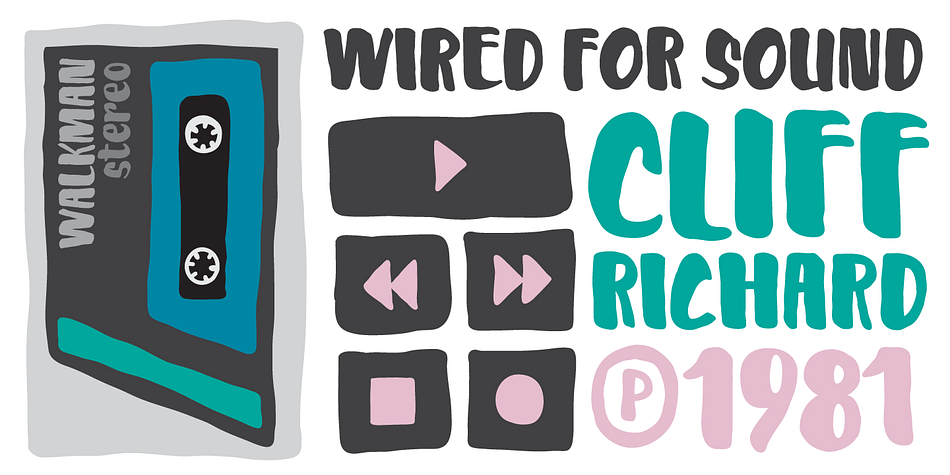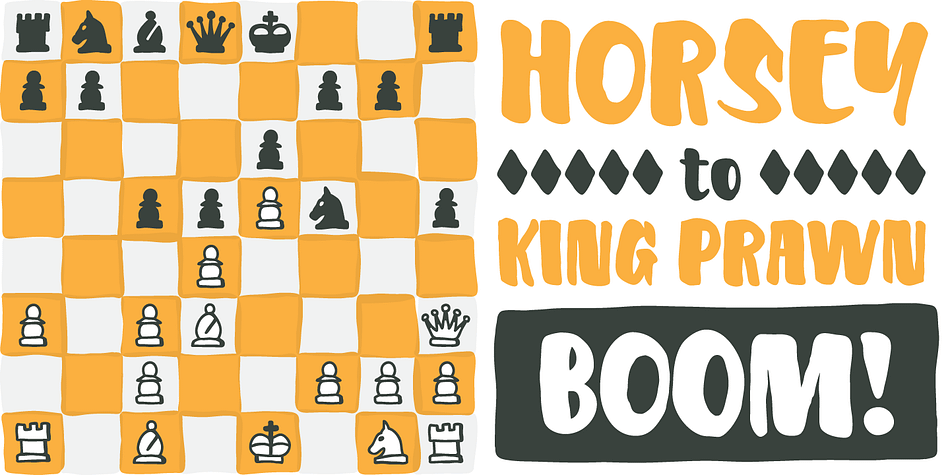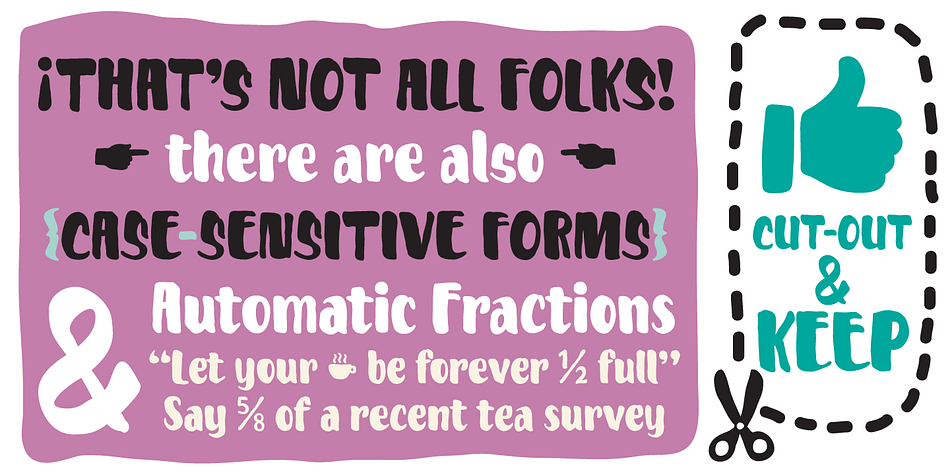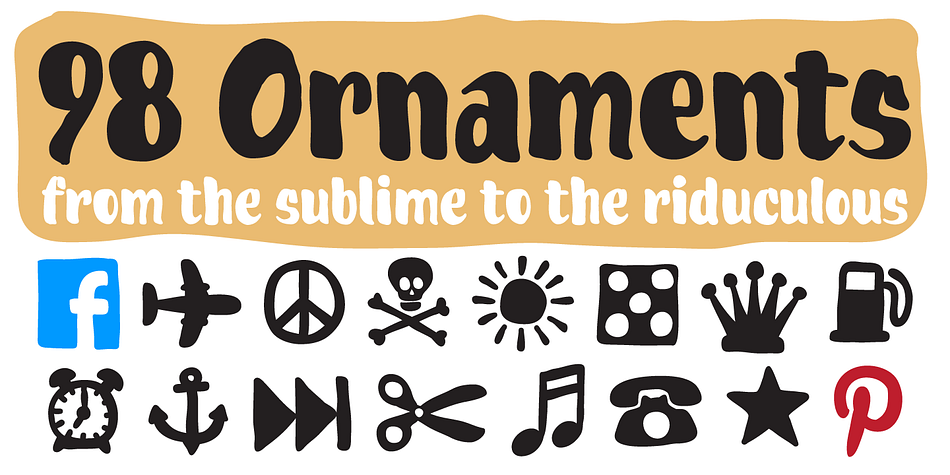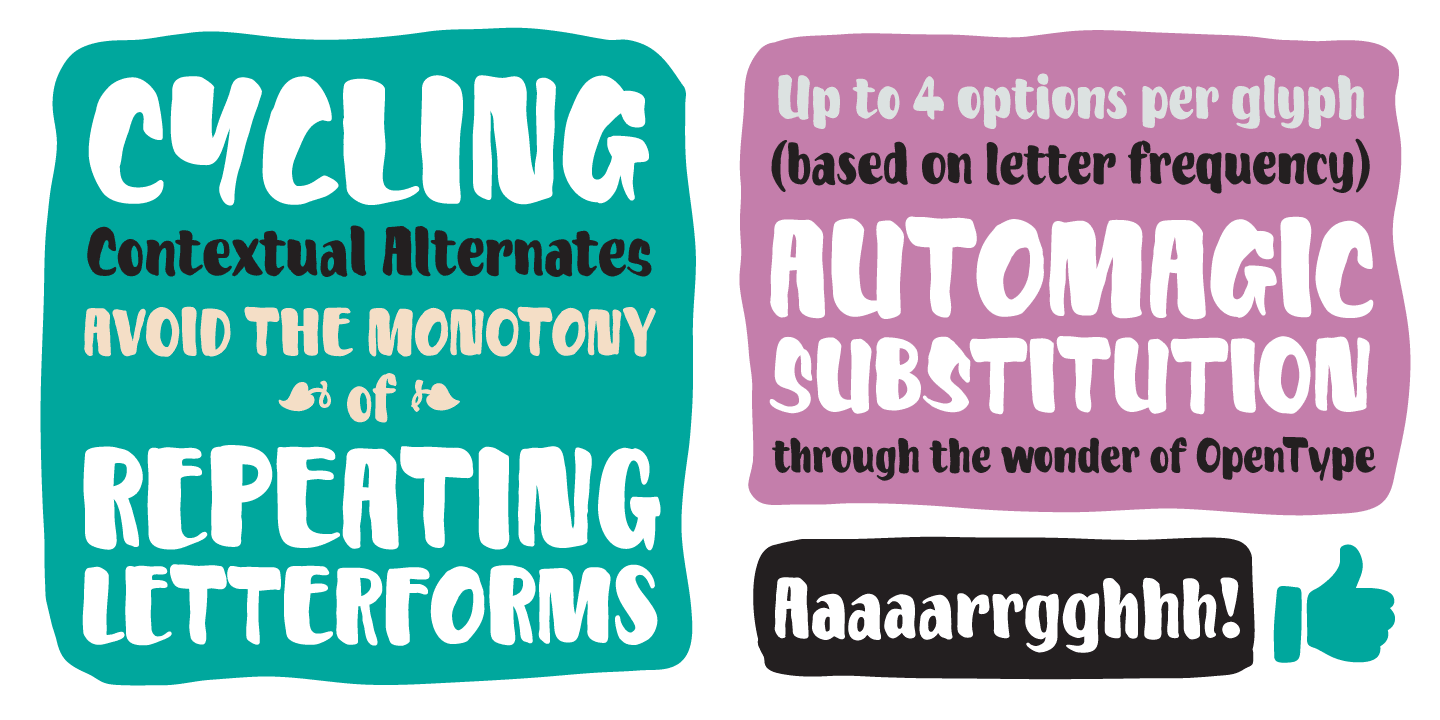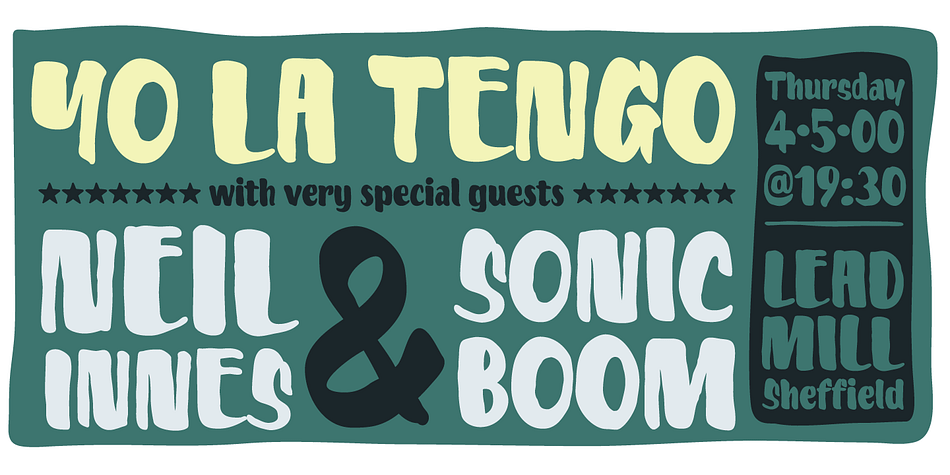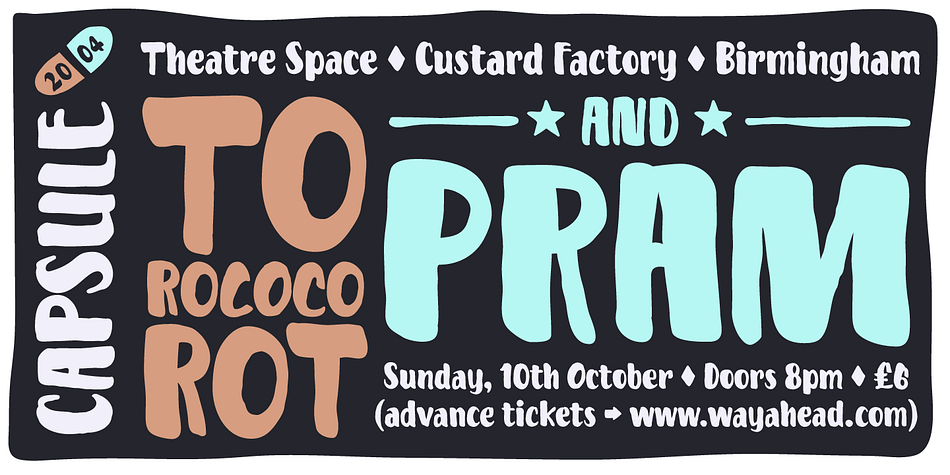
Kake
Designed by Dave Rowland, Kake is a brush display font published by Schizotype Fonts.
The rest of the font is made to fit the style.
The hand-made aesthetic is increased by the implementation of contextual alternates, which automatically swap glyphs to alternate forms to avoid the monotony of repeating letters.
The amount of variations for each glyph is dependent on letter frequency in English; there are more a’s and e’s than q’s and j’s.
Even with only two variations of some glyphs, the programming makes sure that no two matching glyphs are ever next to each other, and for the most part they will rarely be even two letters apart.
Kake’s upper case letters are inspired by a hand-painted sign outside a temple in Ubud, Bali. The rest of the font is made to fit the style.
The hand-made aesthetic is increased by the implementation of contextual alternates, which automatically swap glyphs to alternate forms to avoid the monotony of repeating letters. The amount of variations for each glyph is dependent on letter frequency in English; there are more a’s and e’s than q’s and j’s. Even with only two variations of some glyphs, the programming makes sure that no two matching glyphs are ever next to each other, and for the most part they will rarely be even two letters apart. This all makes for type that looks like it isn’t type. The glyphs bounce and subtly change weight with willful abandon.
Some of the letters on that original sign are somewhat quirky. If you’re not a fan you can engage stylistic alternates or stylistic sets to change the C, G, S, Y, c, s and y glyphs to a less idiosyncratic form. These variations still have variations themselves, so with contextual alternates on, they will look as random as all the rest.
Case sensitive forms and automatic fractions are included, as are 98 ornaments, ranging from the useful to the (let’s just say) esoteric. These can be accessed from the glyph palette. I know you’ve probably never realized you need an anchor, a fuel pump, skull and crossbones and chess symbols in the same font before, but that doesn’t mean you don’t!
Kake is full on display typography. It’s legible for small blocks of copy but don’t go setting essays in it. Unless you really want to… in which case, go for it.